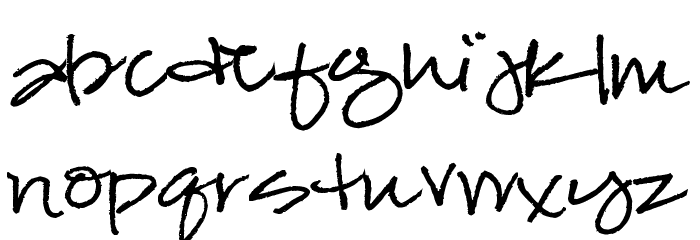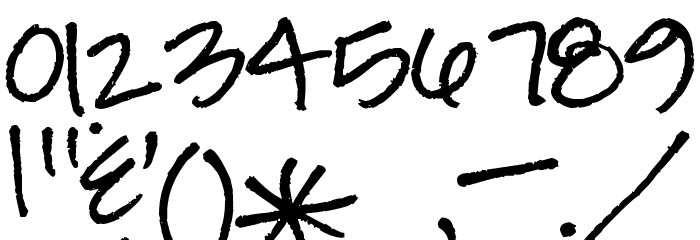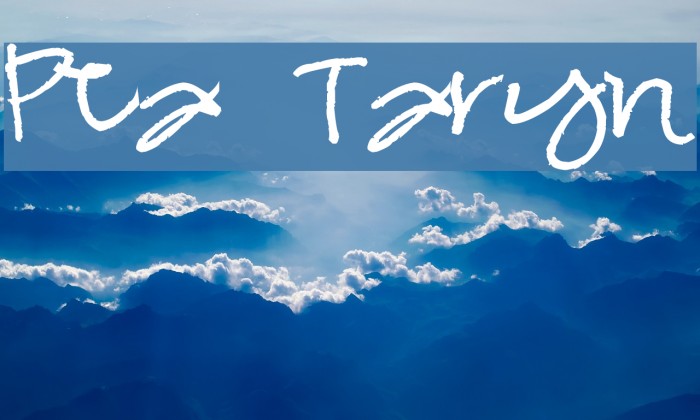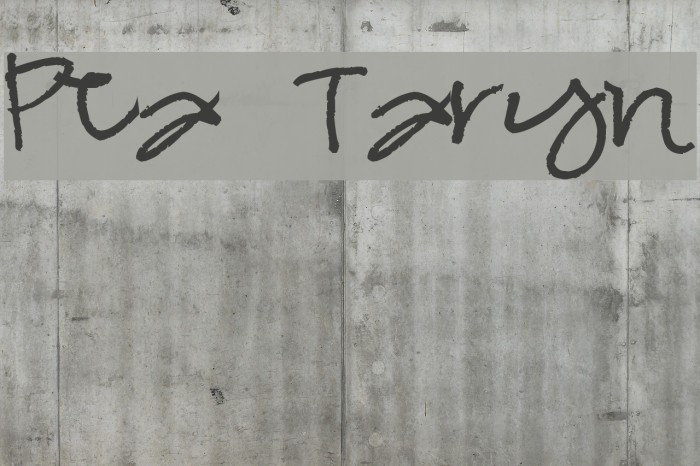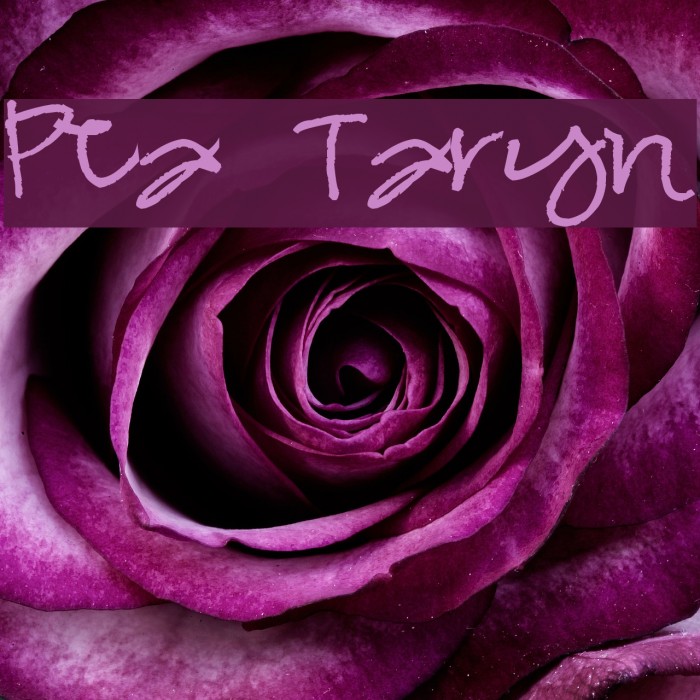
Pea Taryn Font
This font exhibits a casual, handwritten style with a playful and informal appearance. The letters are slightly slanted, giving it a dynamic and energetic feel. The strokes are uneven, mimicking the natural flow of handwriting, which adds a personal touch. The uppercase and lowercase letters are distinct, with some letters featuring unique loops and curves that enhance its charm. The numbers and special characters maintain the same handwritten aesthetic, ensuring consistency throughout the font.
A playful, handwritten font with a casual and dynamic style.
- Font: Pea Taryn
- Proposed Projects: Ideal for personal notes, invitations, greeting cards, and creative projects that require a personal touch.
- Overall Style: Casual
- Use Case: Headlines, Informal text, Creative projects